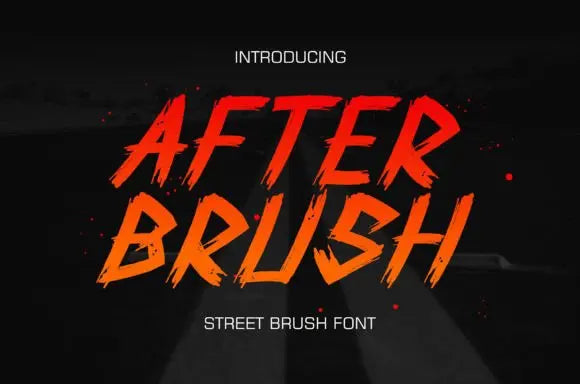
After Brush Font
Elevate Your Designs with After Brush Font
Looking for a high-quality typeface to enhance your creative projects? After Brush Font by Handsign.Studio is a professionally designed font that brings style, versatility, and readability to any design. Whether you're working on branding, posters, social media graphics, or editorial layouts, this typeface adds a unique touch to your work.
Why Choose After Brush Font for Your Projects?
This font is designed to be both visually striking and highly functional. With its carefully crafted letterforms, After Brush Font works beautifully in both digital and print projects. Whether you need a bold display font or a subtle yet elegant typeface, this font adapts effortlessly to different creative needs.
Key Features of After Brush Font:
✦ Versatile Design – Perfect for logos, branding, and editorial use.
✦ High-Quality Typography – Professionally crafted for clarity and impact.
✦ Customizable – Adjust weight, spacing, and alternates to suit your style.
✦ Perfect for Various Design Needs – Works beautifully in digital and print formats.